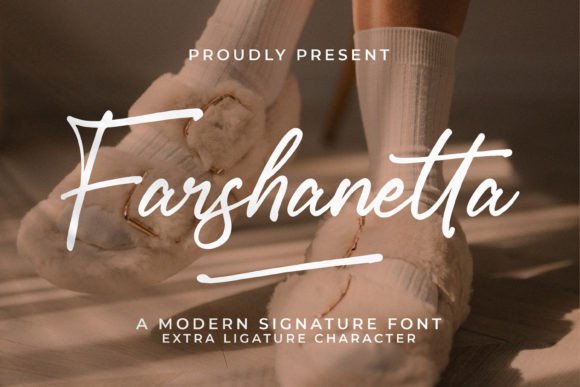
Welcome to the realm of Farshanetta, a Modern Signature Font that transcends the ordinary and unveils a world of elegance and creativity.
In this digital age where fonts hold the power to convey emotions, Farshanetta emerges as a masterpiece that whispers stories and captures hearts. Its meticulously crafted curves and intricate details are not mere strokes on a screen; they are a symphony of visual artistry.
Let Farshanetta elevate your designs to new heights. Its modern and sophisticated style seamlessly blends with any project, from branding and logos to product packaging and social media campaigns. Unleash your imagination and watch as Farshanetta transforms your creative visions into stunning realities.
With Farshanetta, you'll find a font that effortlessly captures the essence of luxury and premium taste. Its inherent versatility allows it to adapt to a myriad of projects, whether it's creating eye-catching posters, designing elegant invitations, or adding a touch of sophistication to your business cards.
Indulge in the myriad possibilities that Farshanetta presents. Let it be the brush that paints your creative canvas, the voice that speaks through your designs, and the touch that captivates audiences.